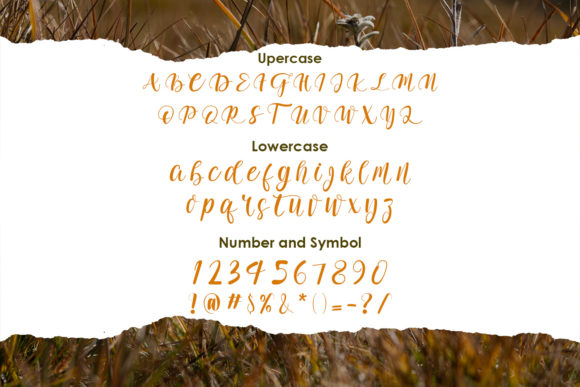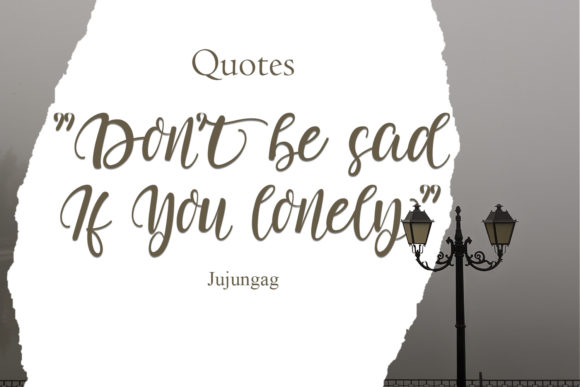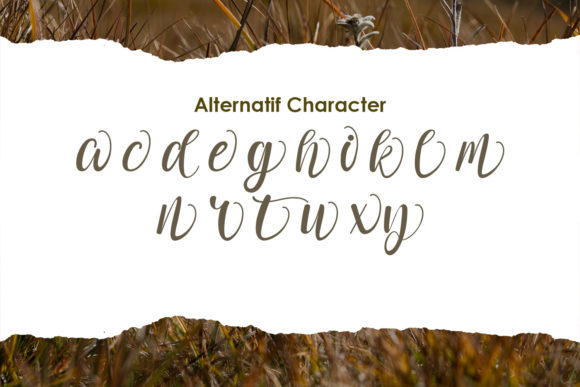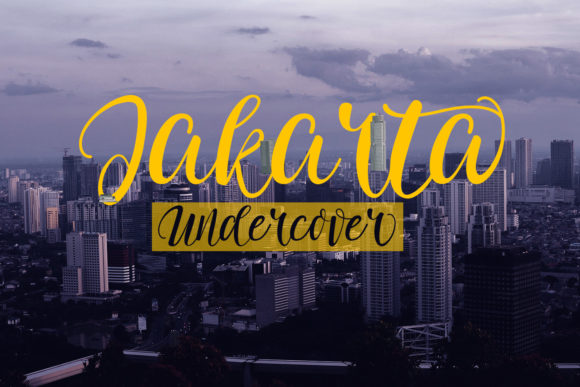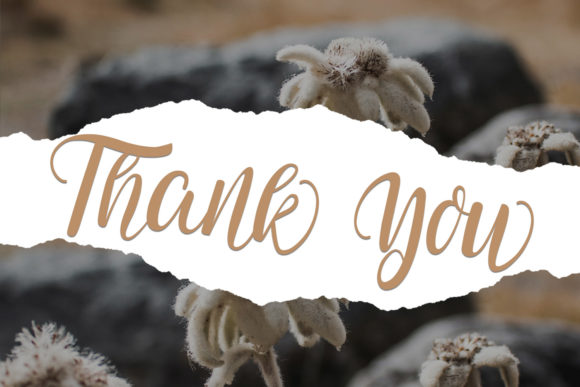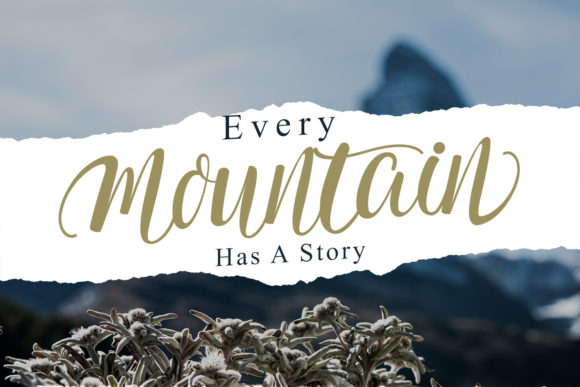
The Adelwish Font: A Friendly and Cute Handwritten Companion for Your Creative Projects
An Honest Review of Adelwish Font
- ✨ Cute and casual feel: Adelwish has an incredibly friendly and approachable vibe that makes it perfect for creative projects.
- ✅ Versatile: This font is suitable for a wide range of applications, from Instagram posts to calligraphy scripts for DIY projects.
- ✅ Ease of use: Adelwish is easy to read and works well in various design contexts.
However, no font is perfect, and here are a few minor quirks to consider:
- ⚠️ Limited formal appeal: Adelwish might not be the best choice for projects that require a more formal or traditional look.
- 🤔 Overuse of swashes: If not used thoughtfully, the swashes and flourishes in Adelwish can make the text look cluttered.
The Story Behind Adelwish Font
While the exact origins of Adelwish are unclear, it’s easy to imagine that this font was created with the intention of spreading joy and creativity. Perhaps the designer, inspired by the beauty of handwritten letters, set out to craft a font that would make everyone feel like they’re receiving a personal, handwritten note. Whatever the inspiration, Adelwish has undoubtedly become a beloved font among designers and crafters.
| Font Name | Adelwish Font |
| Author | Nerdstudio |
| What makes Adelwish font so special? | Adelwish is special because of its incredibly friendly and approachable feel. It’s perfect for creative projects that require a personal touch. |
| Is Adelwish suitable for body text? | While Adelwish is beautiful, it might not be the best choice for long body text due to its casual and decorative nature. It’s better suited for headings or short paragraphs. |